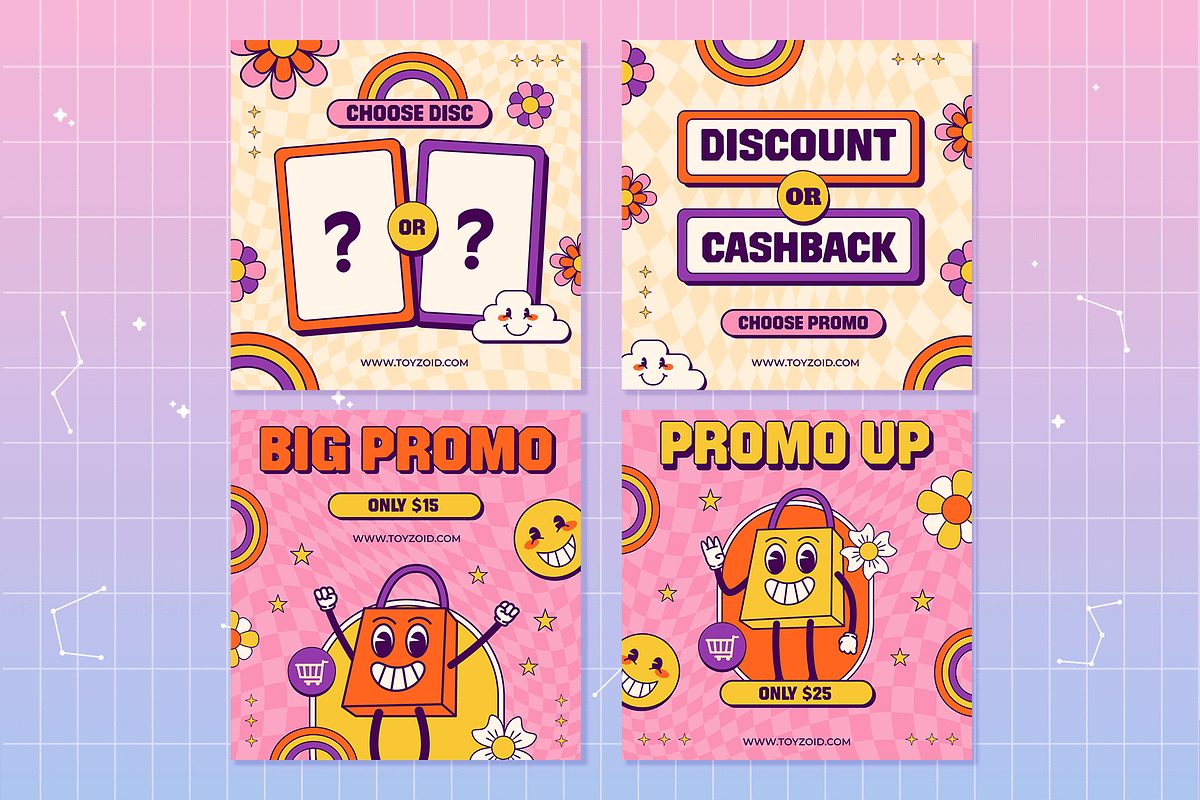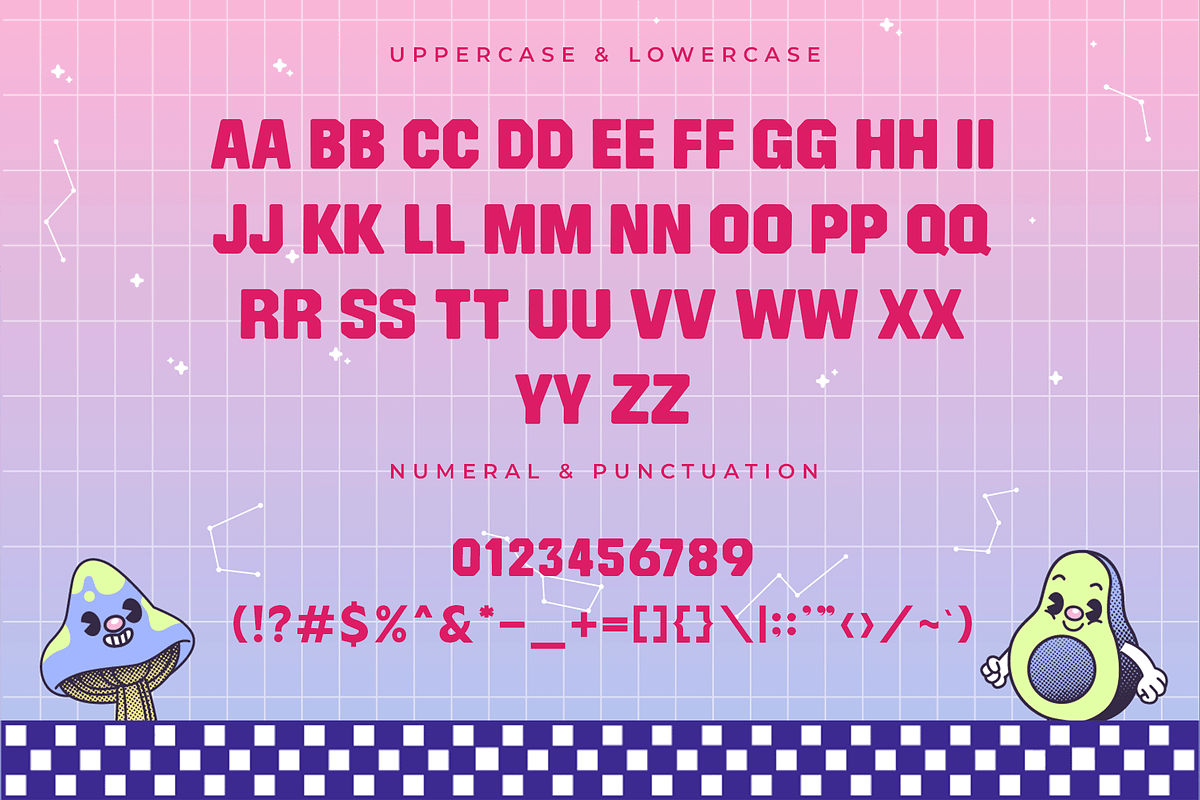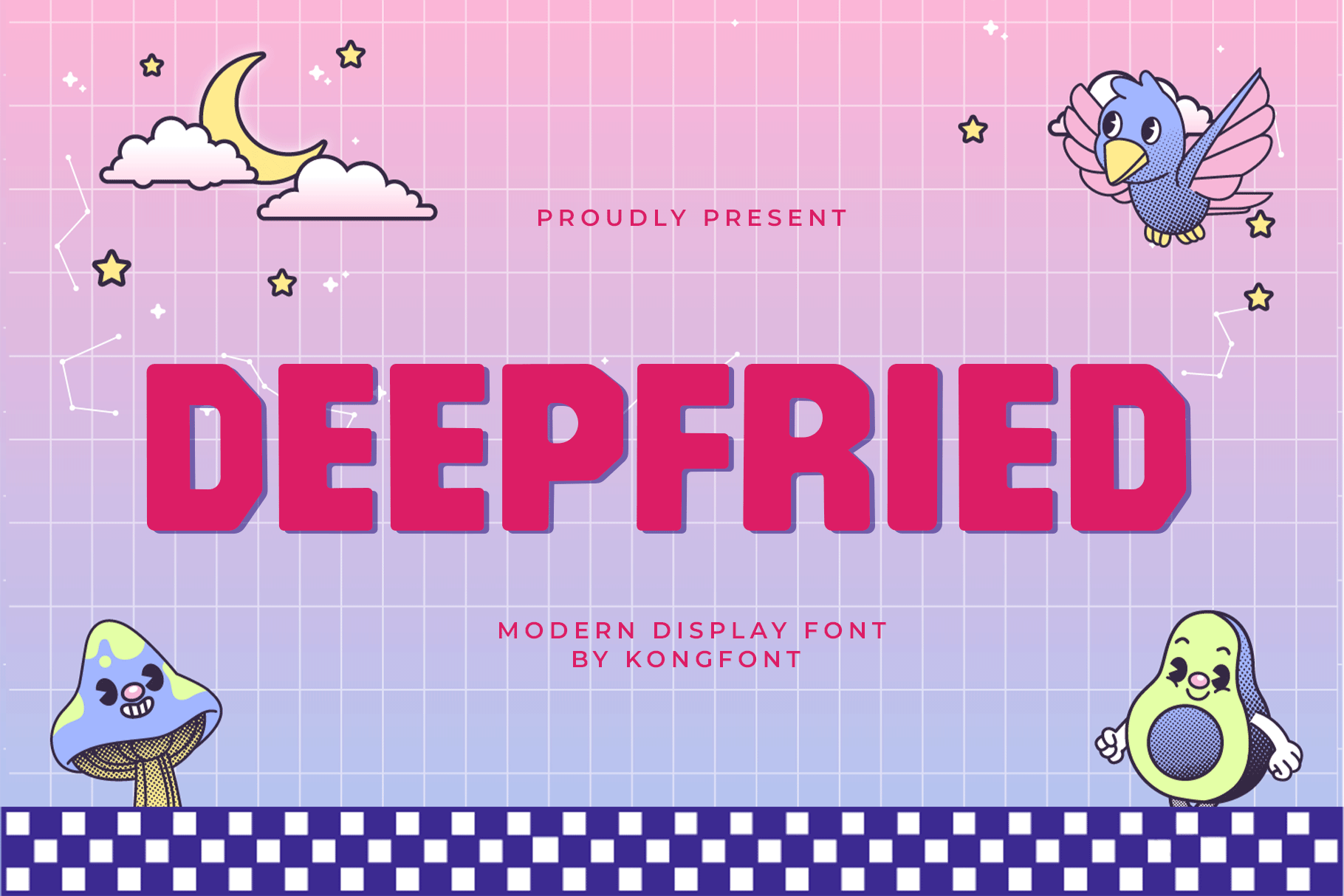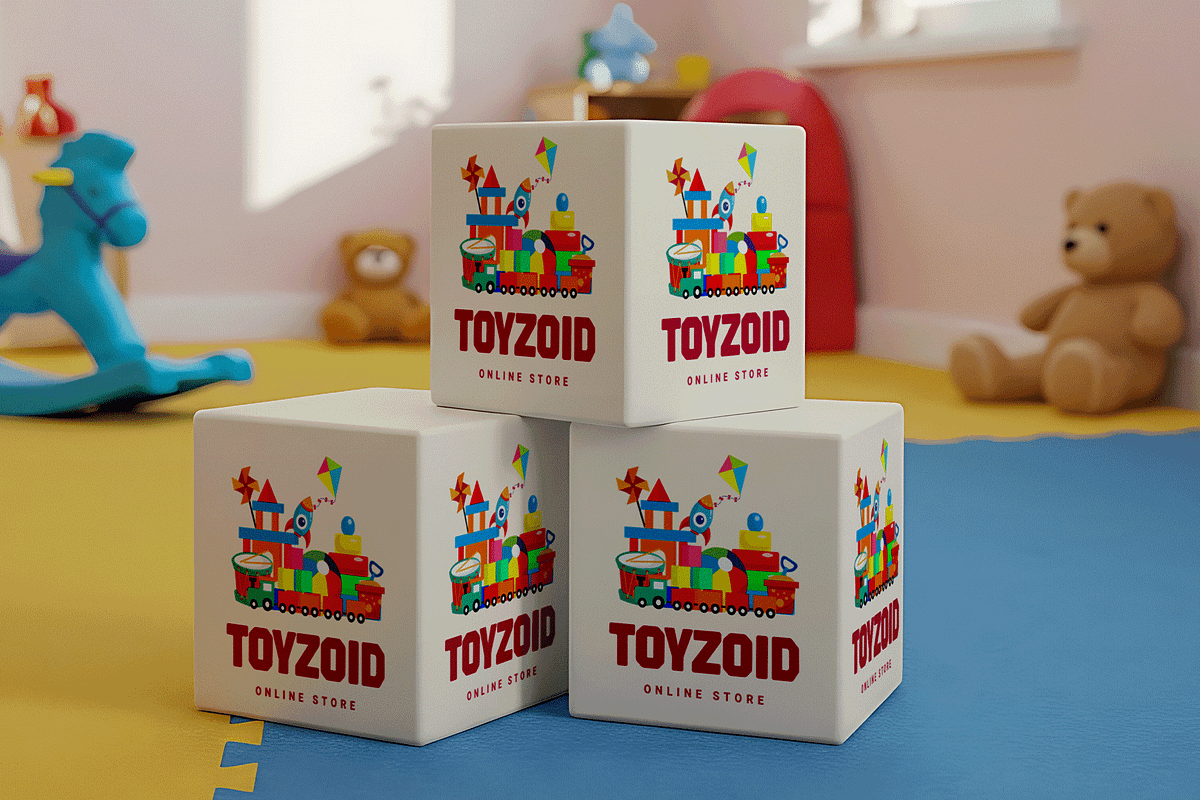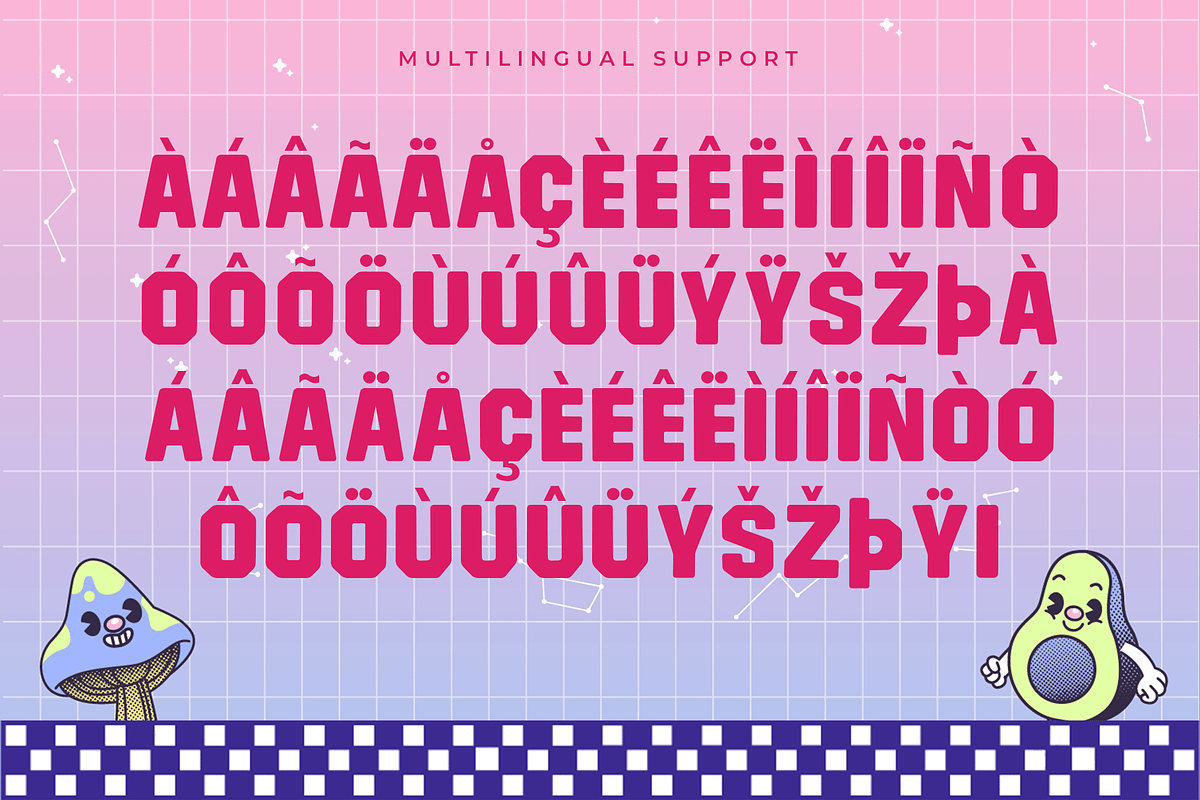
Deepfried – Modern Display Font
Deepfried is a modern display font that brings a burst of playful energy and bold character to your design projects. With chunky letterforms, quirky curves, and a touch of retro fast-food flair, this typeface is made to grab attention and serve up instant visual appeal.
Ideal for food branding, streetwear, fun packaging, posters, social media graphics, and event titles, Deepfried adds a greasy good vibe that's both nostalgic and fresh. Its exaggerated style and humorous edge make it perfect for projects that want to be loud, fun, and flavorful.
Complete with uppercase and lowercase letters, numbers, punctuation, and multilingual support, Deepfried is your go-to font when your design needs to sizzle and pop.